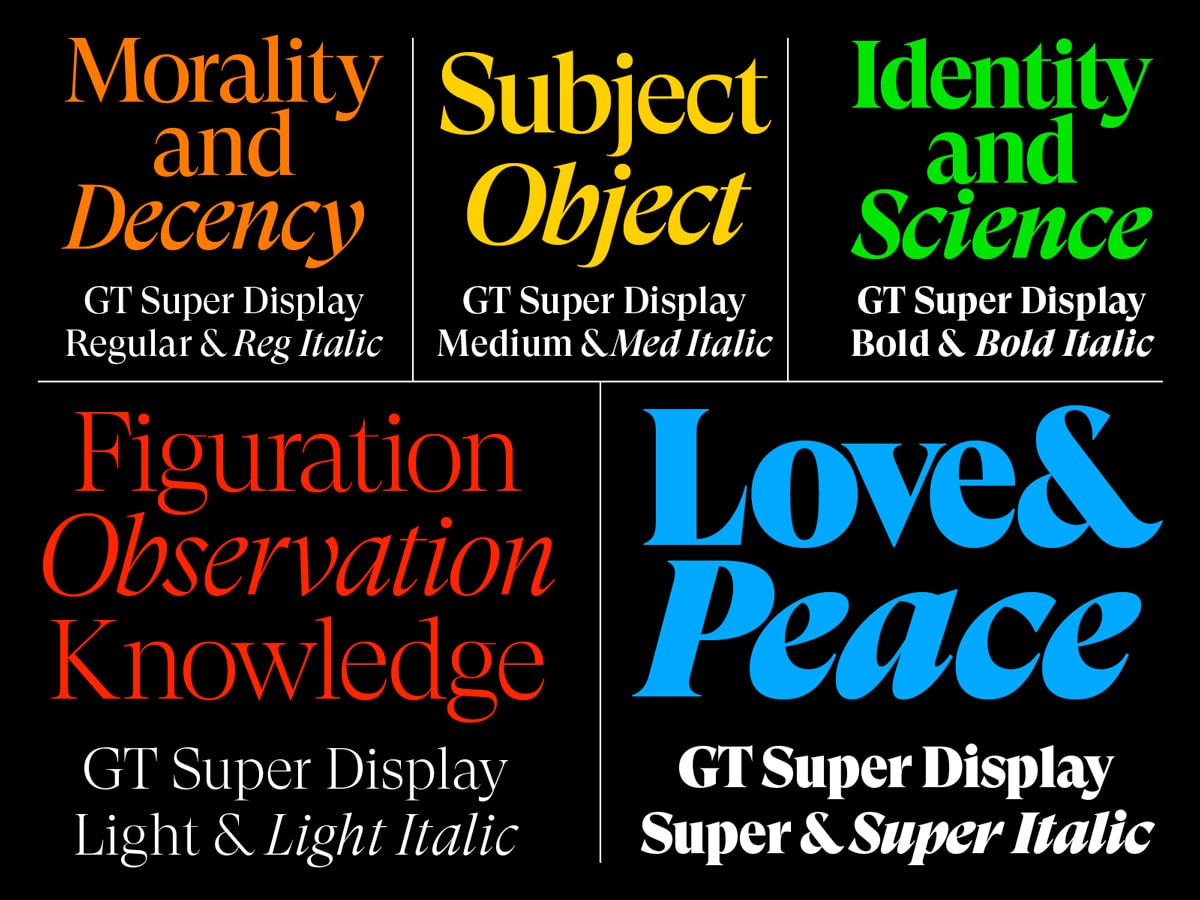
The Best Gt Super Font Family Free Download 2022. Sybarite font family free download. Web gt super — download free trial fonts gt super is the result of an extensive investigation into display serif typefaces from the 1970s and 80s.
Exclusively available at grilli type. Web download trial fonts purchase gt super family overview text book italic regular italic medium italic bold italic black italic display light italic regular italic medium italic bold. Web gt super text book font grillitype.com download font gt super text book font 2.90/5 2966 votes, rated based on results identification download gt super text book.
Gt Super Is A Serif Typeface Family Designed By Noël Leu And Published Through Swiss Foundry Grilli Type In 2018.